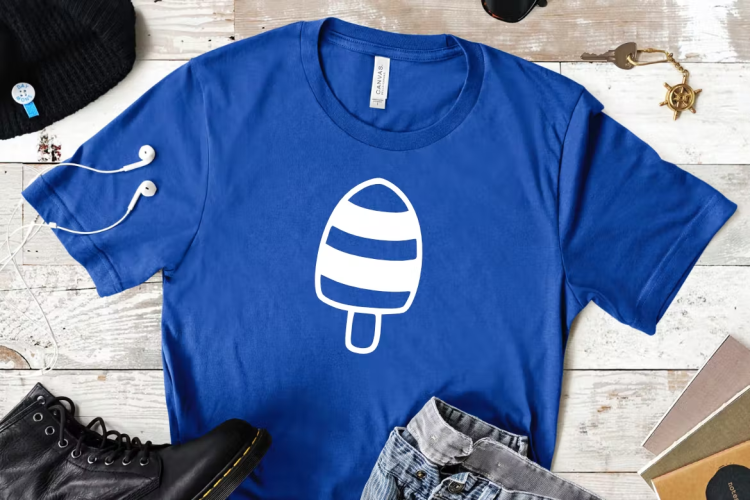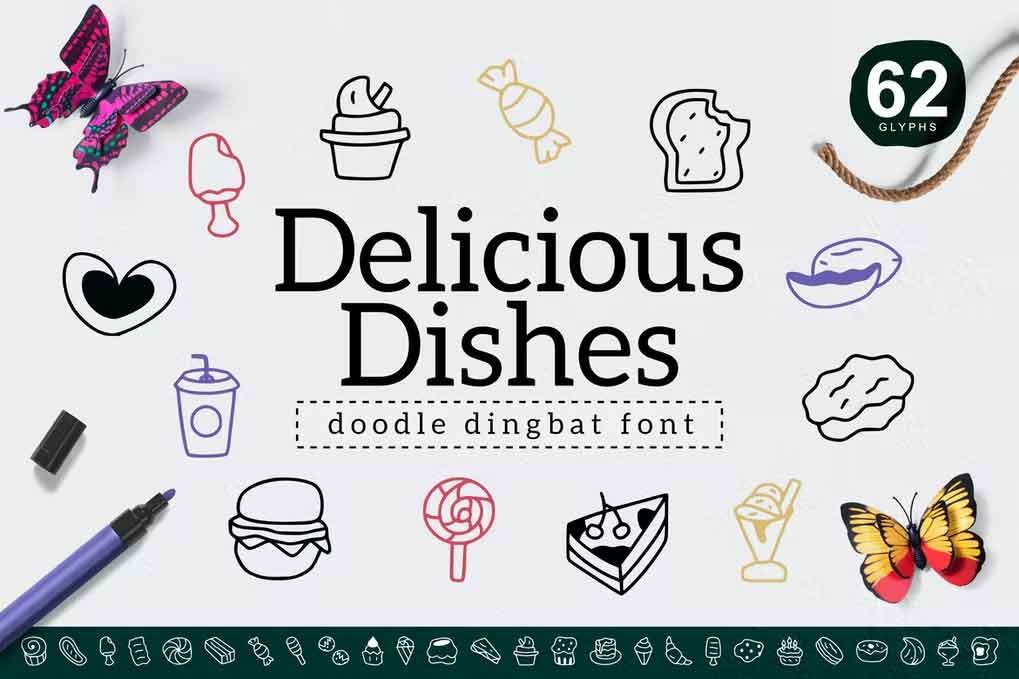
Delicious Dishes Dingbat Font
Delicious Dishes Dingbat
Simple Delicious Dishes doodle dingbat, suitable for many project, logo, ornament etc. Contain 62 symbols as the preview above.
Delicious Dishes Dingbat Font is a Decorative Fonts font that brings a professional and versatile look to your projects. Delicious Dishes Dingbat Simple Delicious Dishes doodle dingbat, suitable for many project, logo, ornament etc.